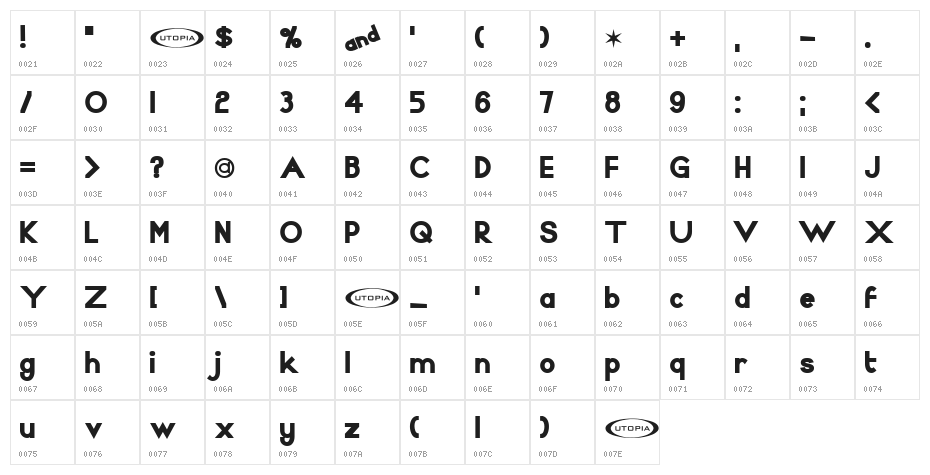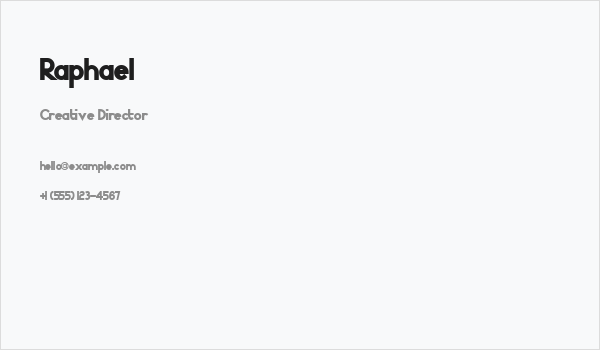
Raphael Font
Raphael Description
This font features a bold and geometric design with clean, sharp edges and a modern aesthetic. The uppercase letters are uniform in height, creating a strong visual impact. The lowercase letters maintain the geometric style, with rounded elements that add a touch of softness to the overall appearance. The numerals are consistent with the bold style, ensuring readability and a cohesive look. Special characters are designed to match the boldness and geometric nature, making them stand out effectively. This font is ideal for projects that require a contemporary and assertive typeface.
| Proposed Projects | Ideal for branding, headlines, posters, and modern web design. |